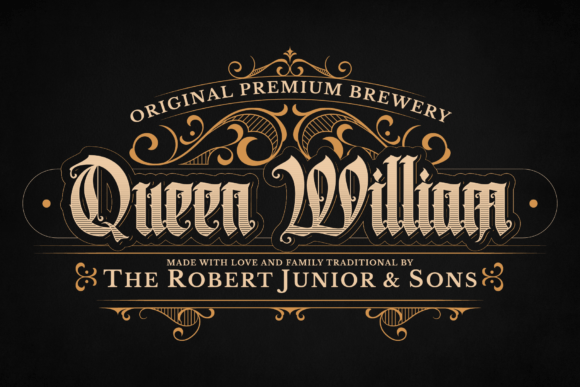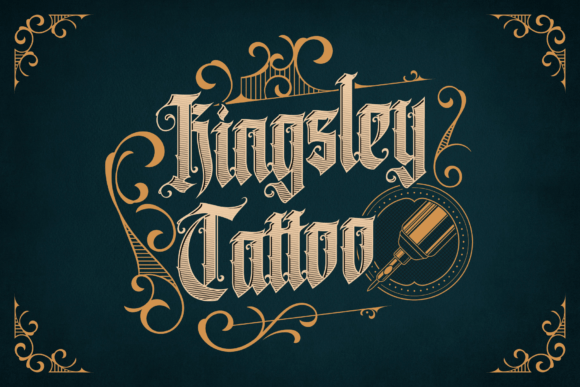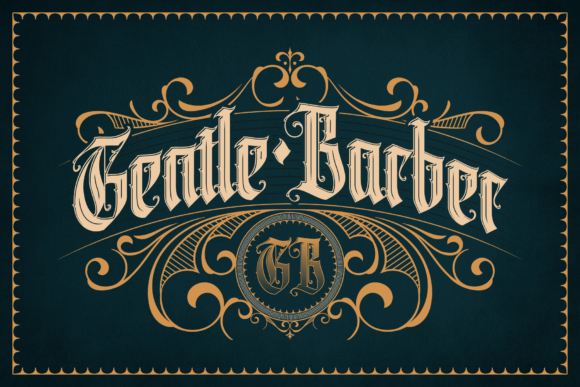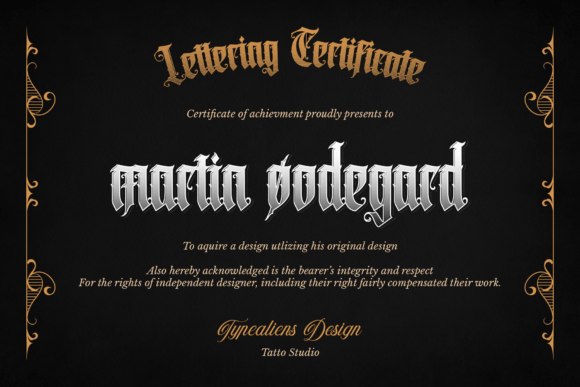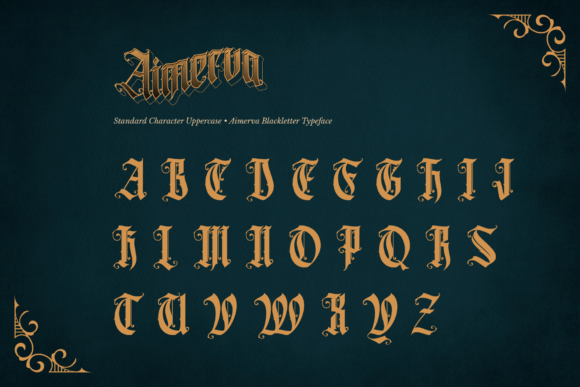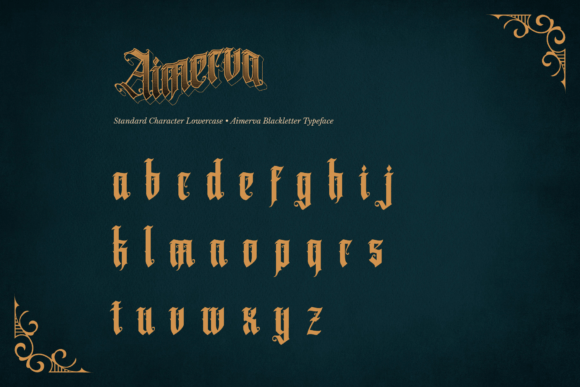
Aimerva Font: A Timeless Blackletter Font with a Vintage Twist
In the world of typography, fonts play a crucial role in defining the aesthetic and tone of a design. For designers and crafters looking for a font that exudes classic elegance with a touch of modernity, Aimerva Font is an excellent choice. This blackletter font with decorative modifications and memorable floral features is perfect for creating stunning designs that support liquor brands, tattoo studios, or any project that requires a vintage flair.
What is Aimerva Font?
Aimerva Font is a blackletter font that draws inspiration from traditional calligraphy and typography. Its primary characteristic is the dramatic, cursive-like flair that is typical of blackletter fonts. However, Aimerva also features a few decorative modifications that set it apart from more traditional blackletter fonts. The addition of floral features and other ornate details gives Aimerva a unique and memorable look that is sure to capture attention.
Key Features of Aimerva Font
Aimerva Font boasts several key features that make it an attractive choice for designers and crafters. Some of its notable features include:
- Blackletter style: Aimerva’s blackletter style gives it a classic, vintage look that is perfect for designs that require a touch of elegance and sophistication.
- Decorative modifications: The font’s decorative modifications, including floral features and ornate details, add a touch of modernity and whimsy to its design.
- Vintage flair: Aimerva’s vintage flair makes it perfect for designs that support liquor brands, tattoo studios, or any project that requires a classic, timeless look.
- Modern and elegant: Despite its vintage roots, Aimerva Font can also be used for modern and elegant projects, making it a versatile choice for designers.
Uses of Aimerva Font
Aimerva Font is a versatile font that can be used for a wide range of design projects. Some of its most popular uses include:
- Liquor brand designs: Aimerva Font’s vintage flair and elegant design make it perfect for liquor brand designs, such as labels, packaging, and advertising materials.
- Tattoo studio designs: The font’s bold, dramatic style also makes it a great choice for tattoo studio designs, including logos, business cards, and flyers.
- Wedding and event designs: Aimerva Font’s elegant design and vintage flair make it a popular choice for wedding and event designs, including invitations, programs, and signage.
- Packaging and branding: The font’s versatility and unique style also make it suitable for packaging and branding projects, including product labels, packaging materials, and marketing materials.
Tips for Using Aimerva Font
To get the most out of Aimerva Font, here are a few tips to keep in mind:
- Use it sparingly: Aimerva Font’s bold, dramatic style can be overwhelming if used excessively. Use it sparingly to create emphasis and add visual interest to your design.
- Pair it with contrasting fonts: Pair Aimerva Font with contrasting fonts, such as sans-serif or script fonts, to create visual interest and add depth to your design.
- Experiment with colors and textures: Aimerva Font’s vintage flair and elegant design make it perfect for experimenting with different colors and textures. Try pairing it with rich, bold colors or subtle textures to add depth and interest to your design.
Aimerva Font is a timeless blackletter font with a vintage twist that is perfect for designers and crafters looking for a unique and memorable font. Its decorative modifications and floral features set it apart from more traditional blackletter fonts, making it a great choice for designs that require a touch of elegance and sophistication. Whether you’re designing for liquor brands, tattoo studios, or modern and elegant projects, Aimerva Font is a versatile choice that is sure to impress.